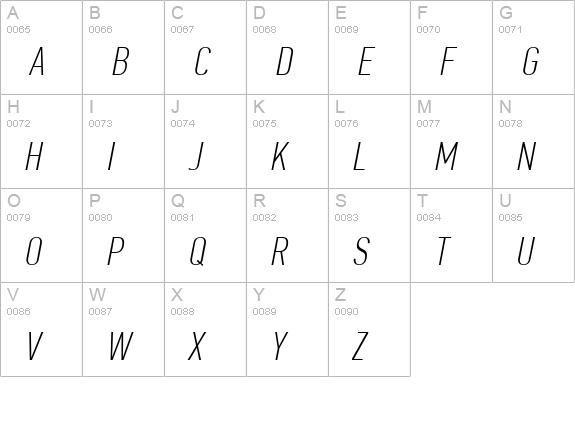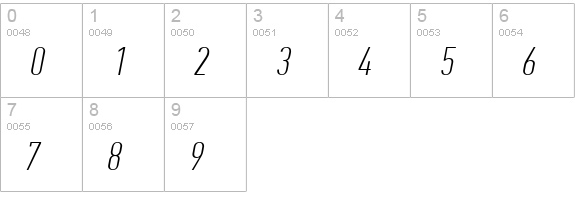
PFDinTextCompPro-ThinItalic Font Details
PFDinTextCompPro-ThinItalic font is a sleek and modern typeface that exudes elegance and sophistication. Its thin and italic design adds a touch of refinement to any project, making it perfect for use in fashion, editorial design, and branding. The delicate curves and subtle slant of each letter create a sense of movement and grace, capturing the eye and drawing the reader in. What sets PFDinTextCompPro-ThinItalic font apart is that it is not only stylish and versatile but also free to download. That's right - this premium font is available for free at FontsMarket.com, making it accessible to designers, creatives, and enthusiasts alike. Whether you're working on a professional project or a personal endeavor, PFDinTextCompPro-ThinItalic font is sure to elevate your design with its unique charm and sophistication. Download it today and see for yourself the impact this font can have on your work.